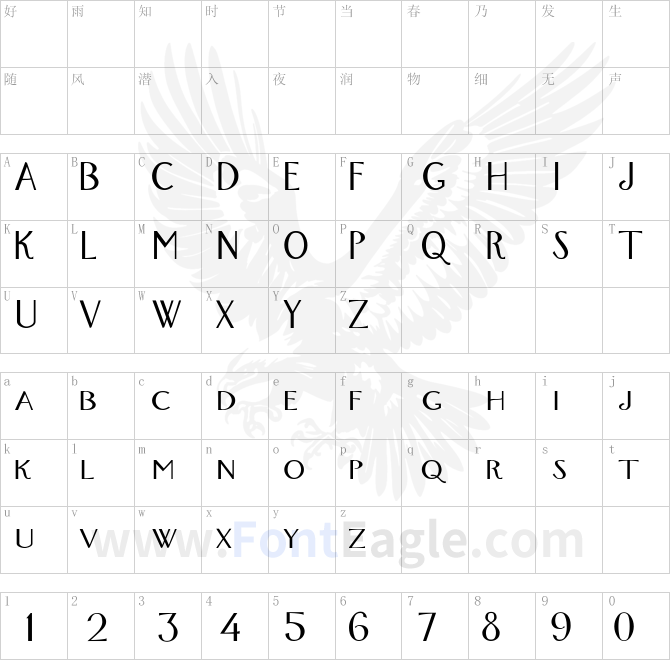
FoxTrotMedium-copy-1- is a great font, widely used in graphic design, single-page menu design, poster design and other fields, and is deeply loved by designers.FoxTrotMedium-copy-1- download.